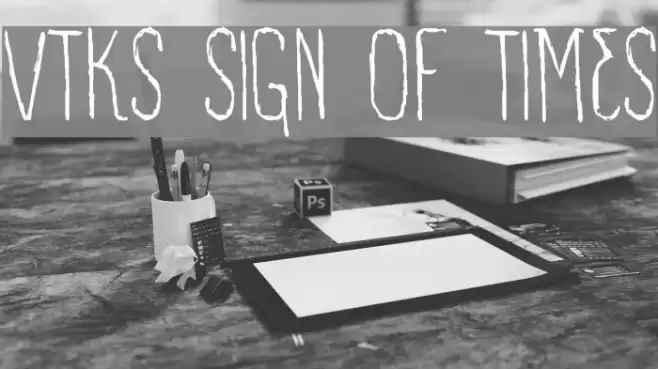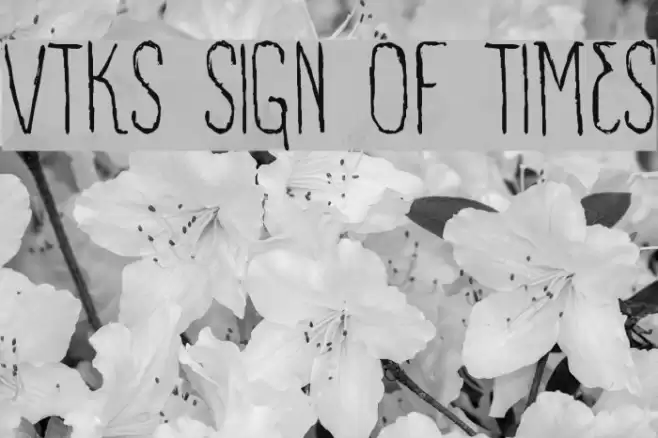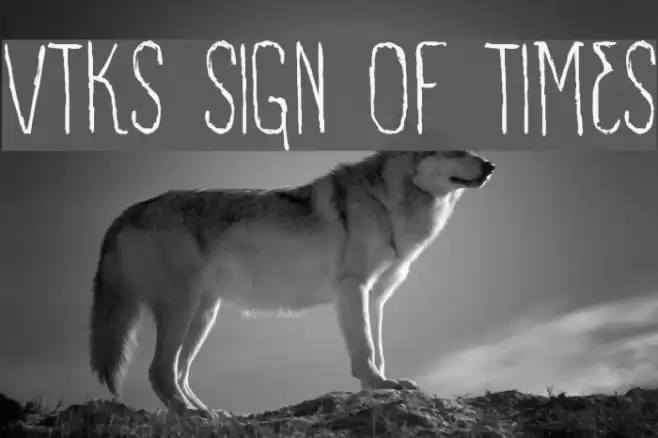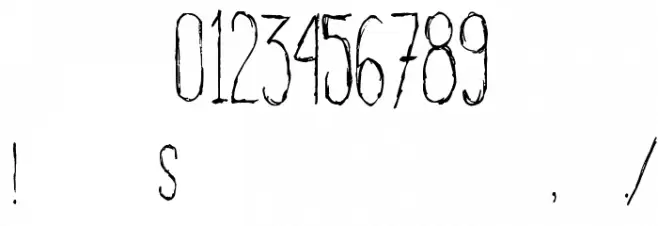
VTKS SIGN OF TIMES Font
VTKS SIGN OF TIMES Description
This font features a distressed, hand-drawn style that evokes a sense of vintage charm and rustic appeal. The characters are tall and narrow, with uneven strokes that give them a textured, weathered look. The uppercase letters have a slightly elongated form, while the lowercase letters maintain a consistent height, creating a harmonious balance. The numbers follow the same aesthetic, with a quirky and artistic flair. This font's unique style makes it ideal for projects that require a touch of nostalgia or an artisanal feel.
A distressed, hand-drawn font with a vintage and rustic appeal from Distorted Eroded fonts.
- Proposed Projects: Perfect for vintage-themed posters, artisanal product packaging, rustic wedding invitations, and creative branding projects.
- Overall Style: Vintage